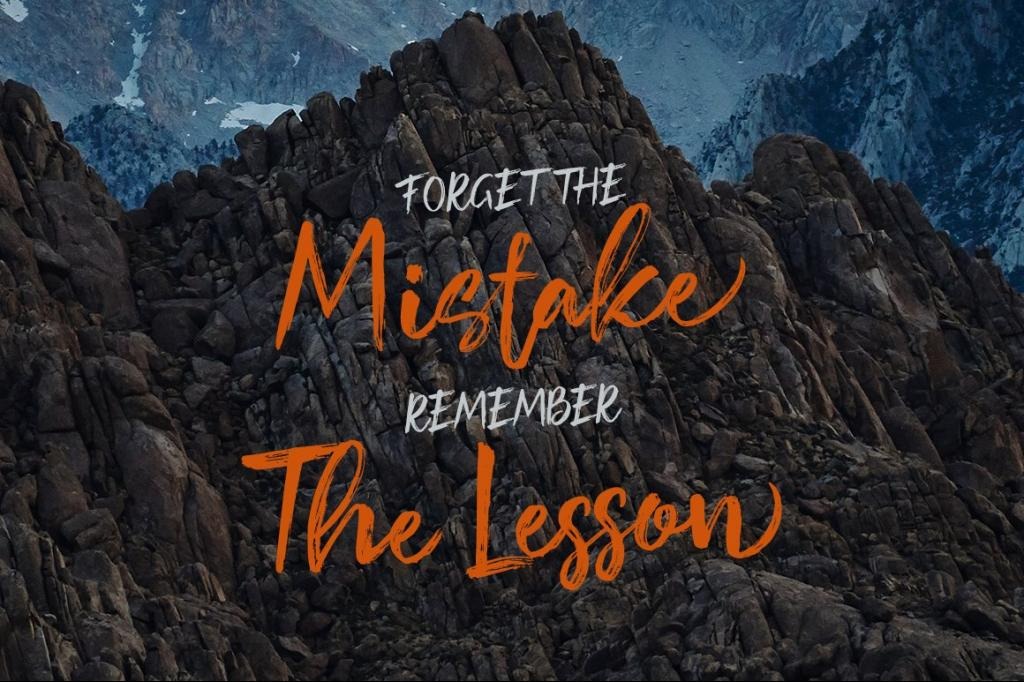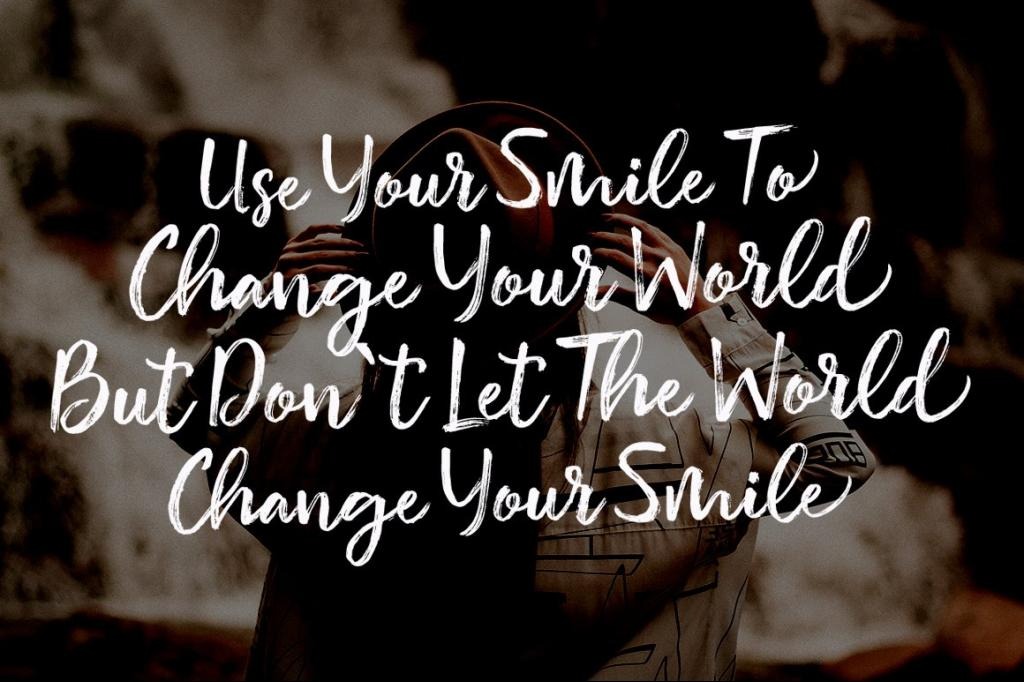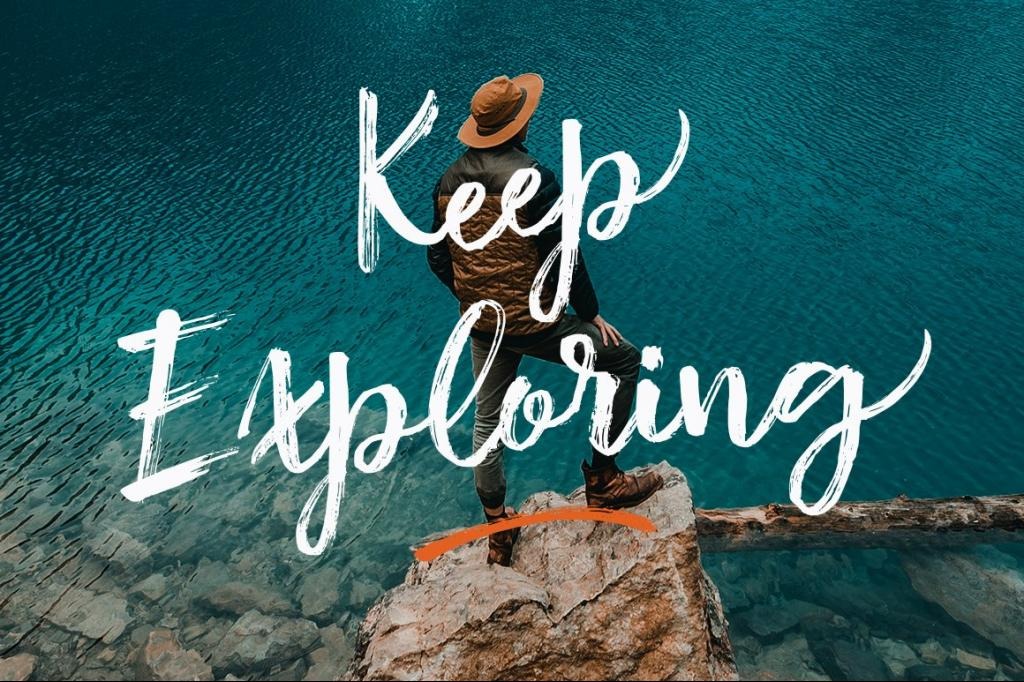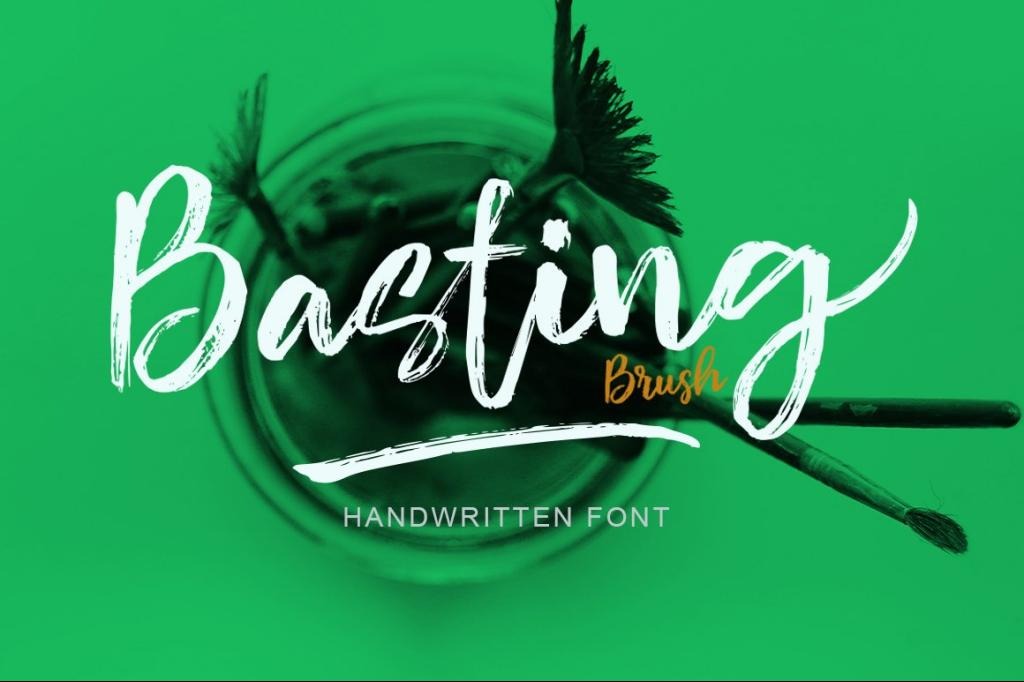
Basting Brush Font
This is a cool and casual brush display typeface created by Solidtype with the kind of modern hand scratches, if you want to use for your work this font can be used easily and simply because there are a lot of features in it to contain a complete set of letters lower and uppercase letters, assorted punctuation, numbers, and multilingual support. font also contains several ligatures and alternate style Stylistic.